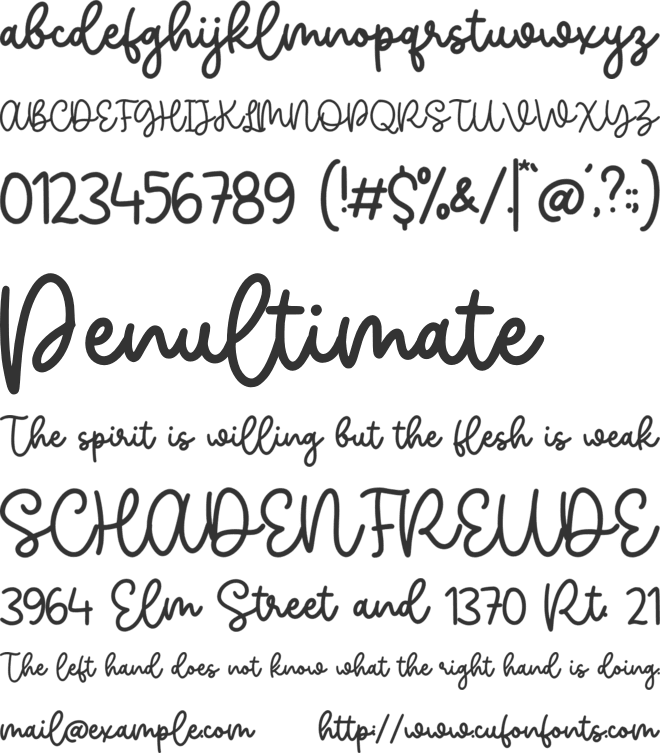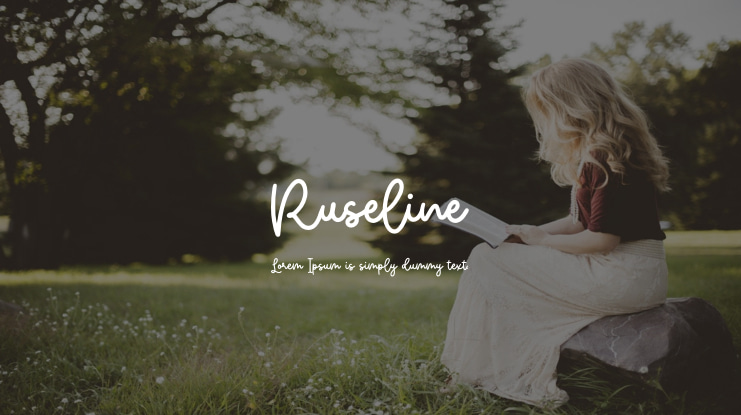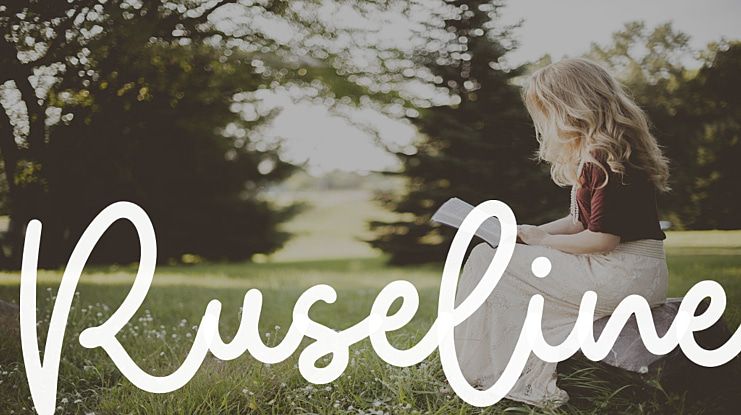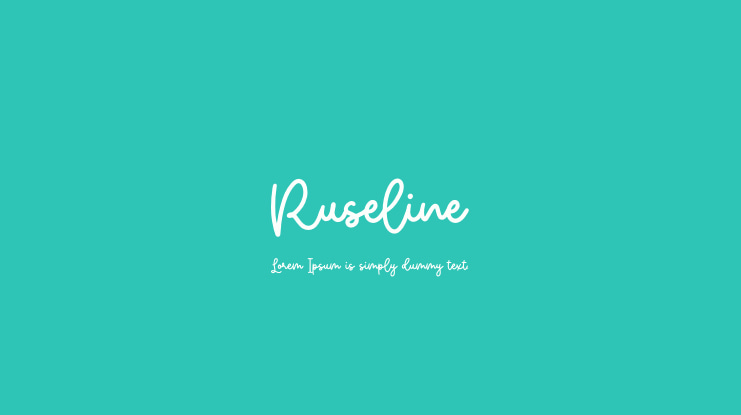
Ruseline Font
Introducing by Allouse.Studio
Proudly Present, Ruseline
Ruseline A Monoline Font
Ruseline is perfect for product packaging, branding project, megazine, social media, wedding, or just used to express words above the background.